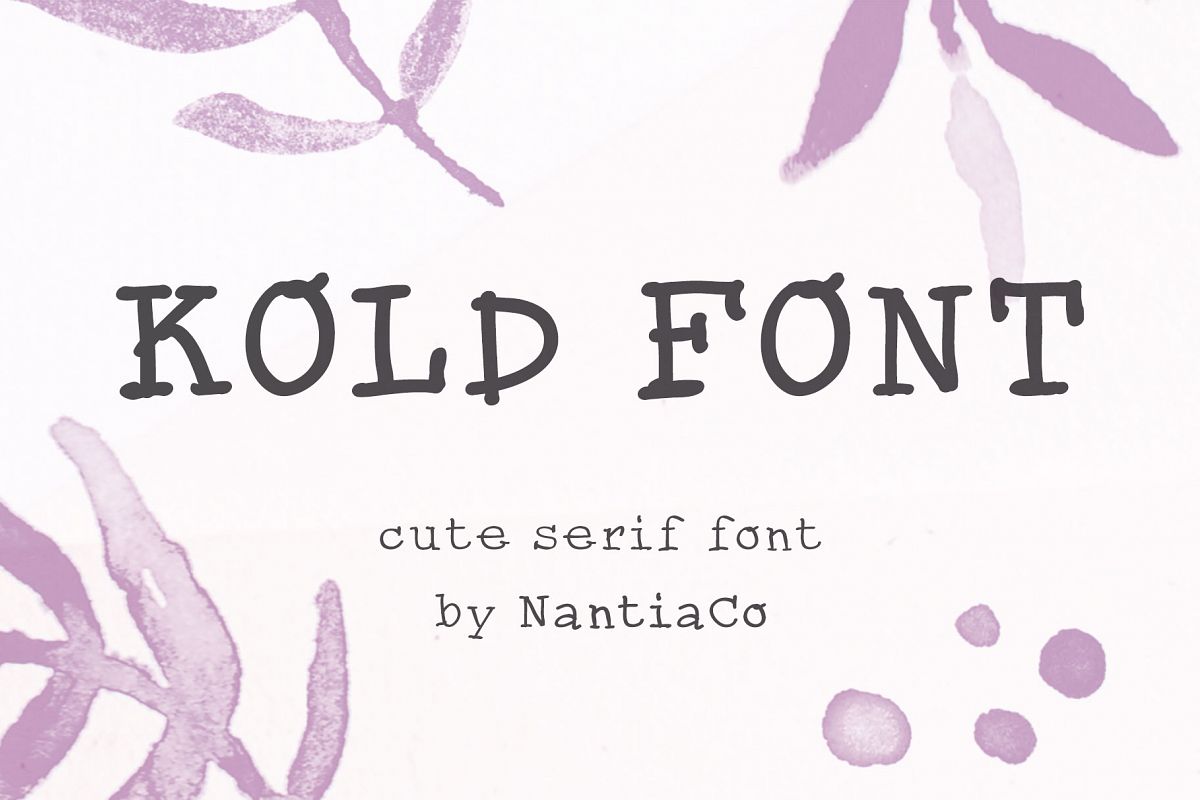
Cute Serif Cyrillic handwritten Font | Kold
Cute Serif handwritten Font | Kold
Cute Serif handwritten Font | Kold is a 100% hand-drawn a decorative font with which you can achieve a childish handwritten-type feeling. Also, this typeface has a really nice flow so you use it in large text if you want to give them a touch of personality. In fact, this multilingual font includes diacritics for a wide range of language support, with Greek (of course), Latin characters, diacritics in 3 weights. Kold font is perfect for your graphic design needs like social media quotes, blog headers, posters, art, and school projects and why not packaging, and logotypes.
In conclusion, Kold Font is a handwriting typeface in 3 weights with 380 glyphs in
• Extended Latin character set,
• Cyrillic character set,
• Greek character set,
• punctuation marks and
• numbers.